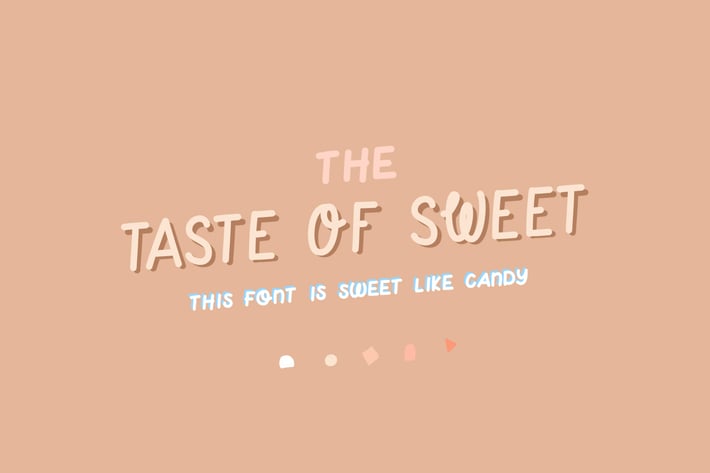
Taste of Sweet | a cute handwritten quote font
Taste of Sweet is a sweet playful handmade font and comes with uppercase & lowercase options, numbers and non-english support. We added ligatures just for fun!
Enjoy this playful font & create motivating quotes!